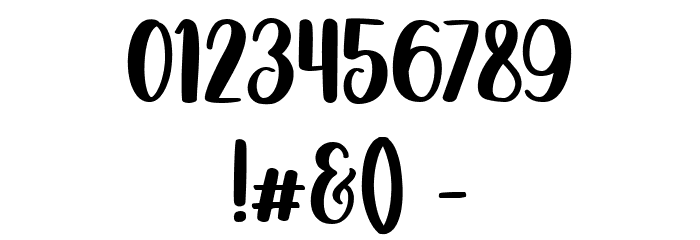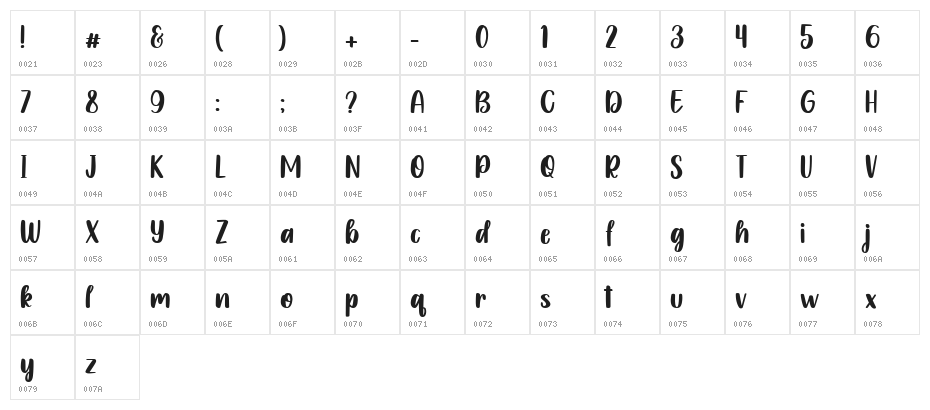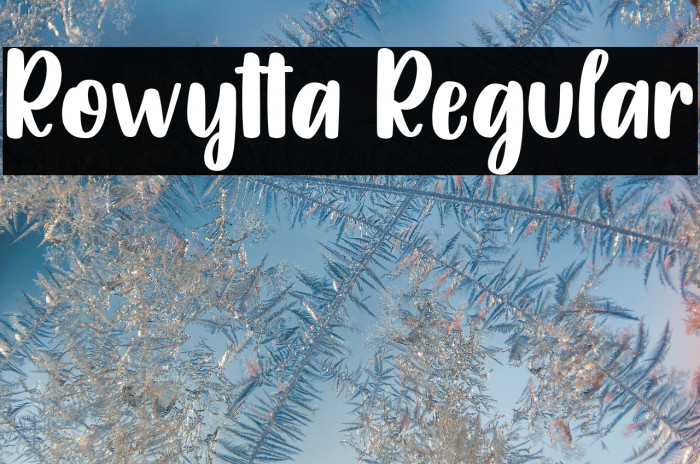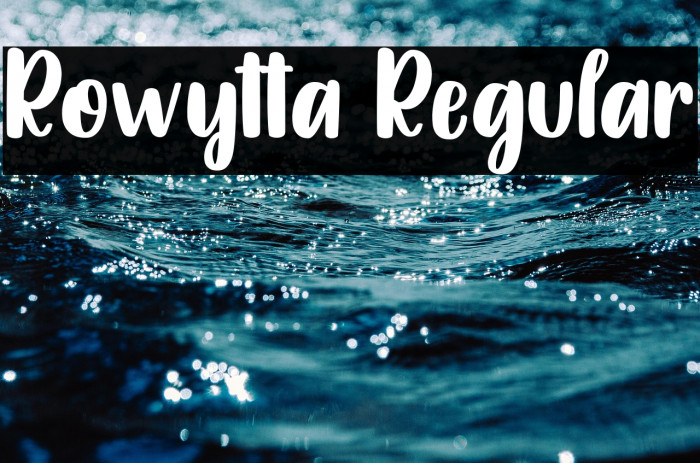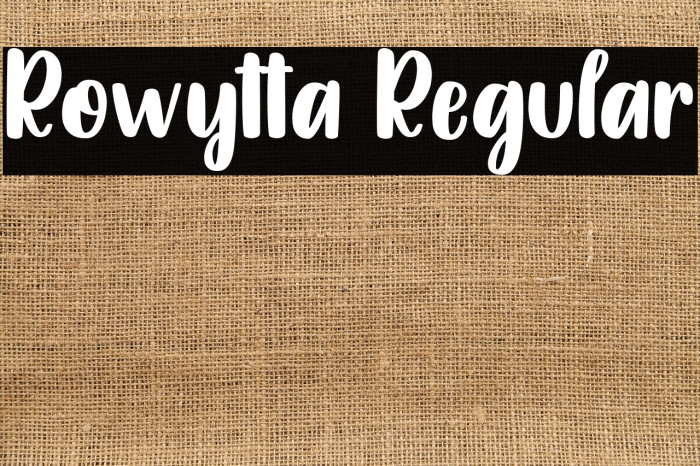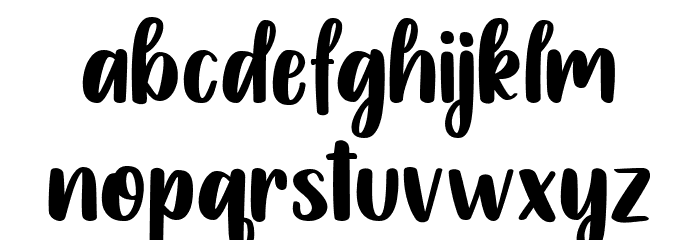
Rowytta Regular Font
Rowytta Regular Description
This font features a playful and bold handwritten style, characterized by its smooth curves and flowing lines. The letters are slightly slanted, giving it a dynamic and lively appearance. The uppercase and lowercase letters maintain a consistent style, with rounded edges and a friendly, approachable look. The numbers and special characters follow the same design principles, ensuring uniformity across all glyphs. This font is perfect for projects that require a personal touch, such as invitations, greeting cards, or branding materials.
Overall StylePlayful, Dynamic
Use CaseHeadlines, Logos, Invitations
Proposed ProjectsIdeal for invitations, greeting cards, branding, and any project needing a personal touch.